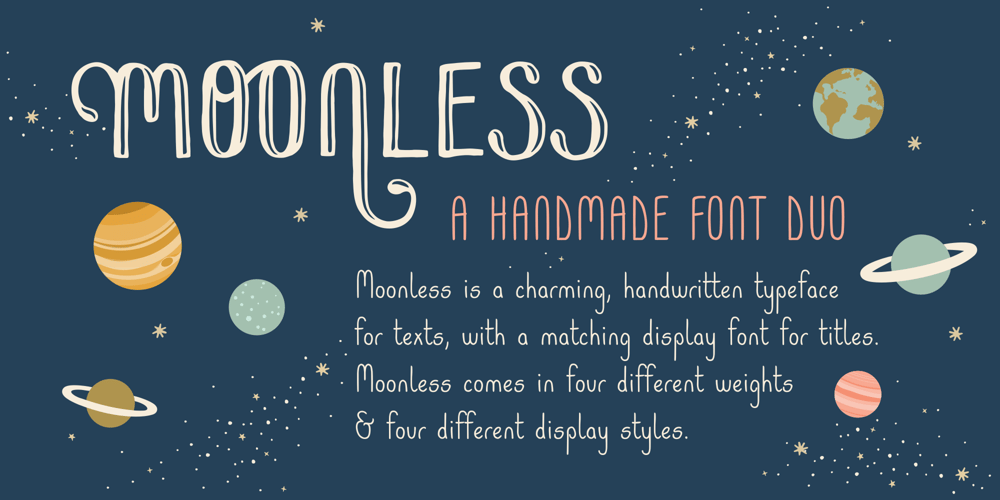
Moonless
Moonless font
Moonless Font Family was designed by Franzi Paetzold and published by Franzi draws. Moonless contains 20 styles and family package options. Moonless is a charming handmade font duo, designed for texts, with a matching display font for titles in four different styles. The text font has true-drawn small caps available as an OpenType feature. In case you have no access to OpenType features, there is “Moonless SC” – the small caps version of the font.Moonless is perfect for children’s books, poetry, invitations and design magazines.Moonless for texts comes in four different weights: light regular semi bold bold Moonless SC the small caps version of Moonless SC Regular is free! 🙂 The display font comes in four styles: regular (“night”) engraved (“shine”) with dots (“stars”) outline (“space”) The font name was inspired by one simple word from Farid Attar’s poem “The Conference Of The Birds”.